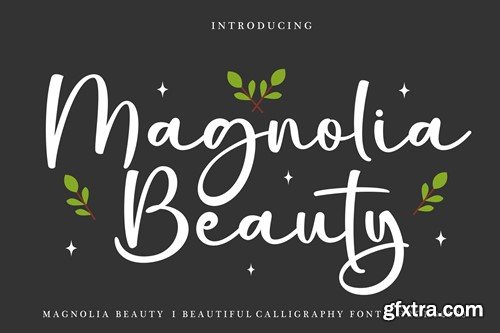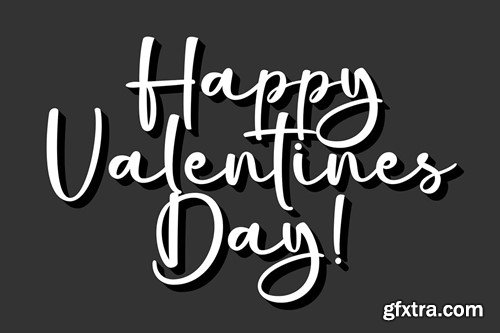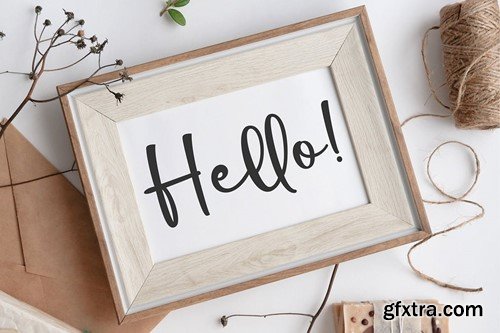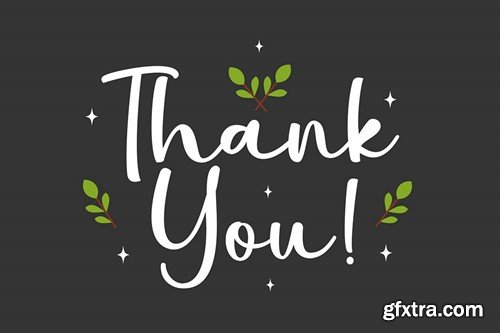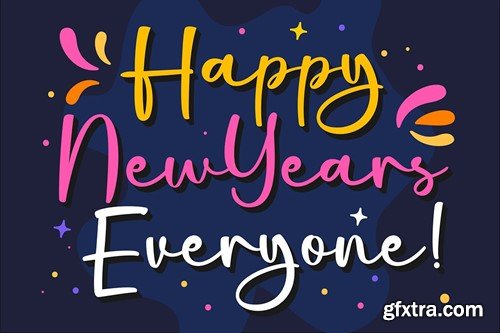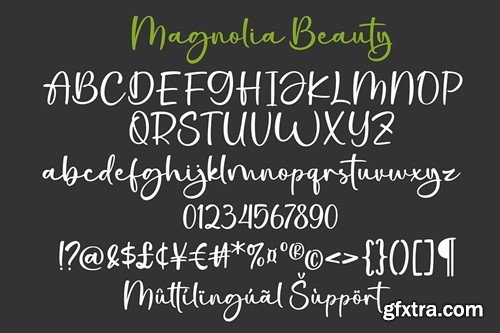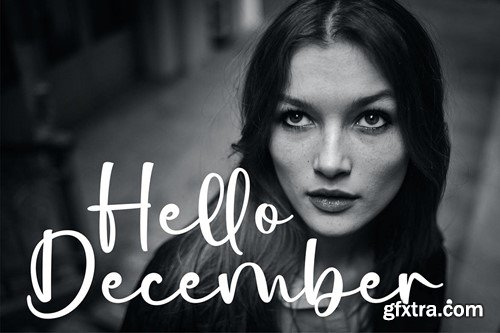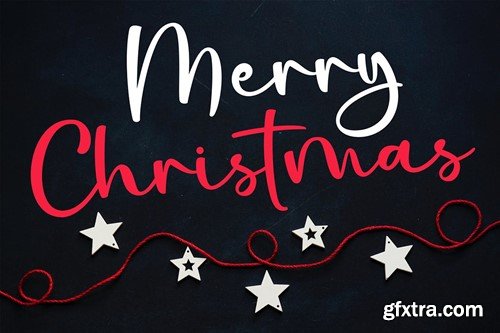
Magnolia Beauty - 美丽书法字体 6UWJFE9
Magnolia Beauty - Beautiful Calligraphy Font
Magnolia Beauty is a modern and Beauty Calligraphy font. It's perfect for branding, wedding invitations, photography, Neon Sign, bloggers, logos, greeting cards, Logo, Quotes and more. Font Features : Magnolia Beauty Font files with OTF and TTF file and support PUA Encoded font files for use with software that doesn't support OpenType features such as Silhouette, Inkscape, etc. All of features and special characters of this font are included in one file. So it is easy to accessed by using program or software that support the opentype like Adobe Illustrator, Adobe Photosop, and Adobe Indesign).